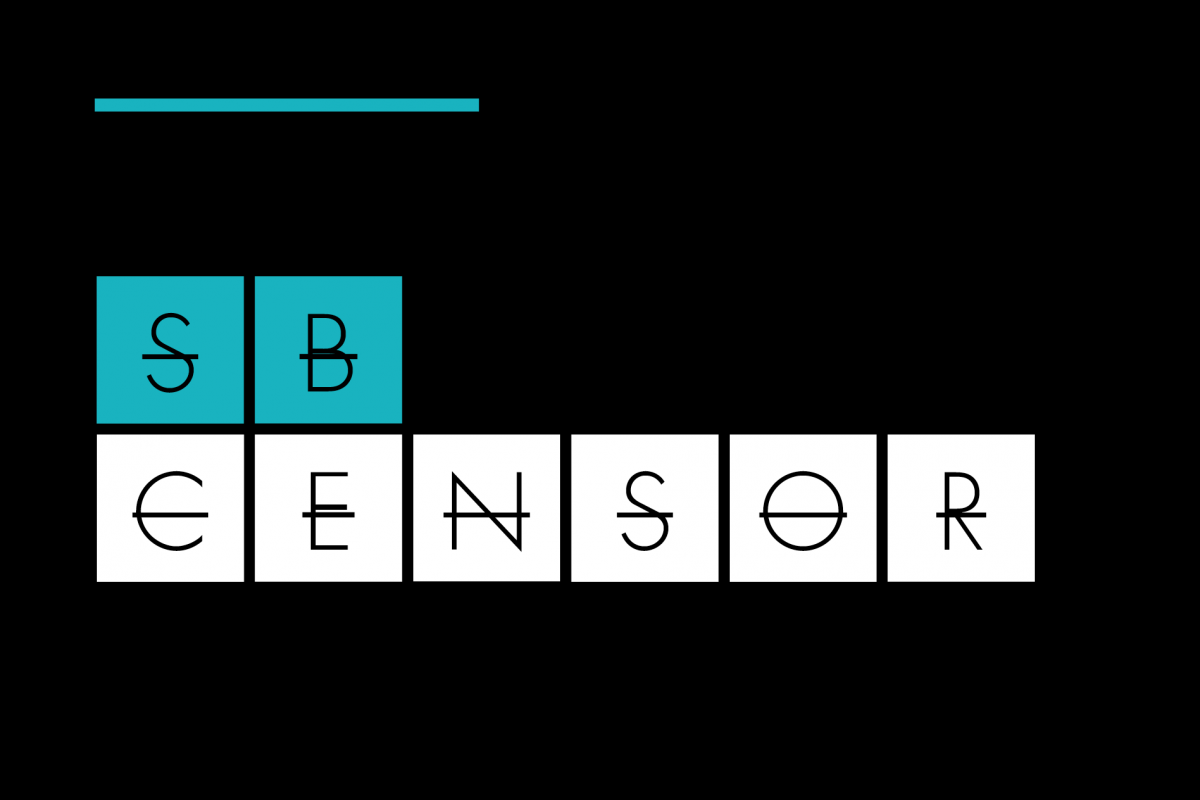
SB Censor
SB Censor consists of three component fonts and three SVG Color fonts. The combination of the wide monospacing and the square background block give this typeface a lot of potential for playful layouts, especially when used with in combination with colour.
SB Censor originally came out of a project centered around the theme of censorship in cinema. The treatment of the letterforms was created in Quark XPress using the built-in strikethrough text styling, which was applied to each letter individually. The individual letters were spaced in a monospaced, grid-like fashion with some letters appearing reversed out of a box and others on their own.